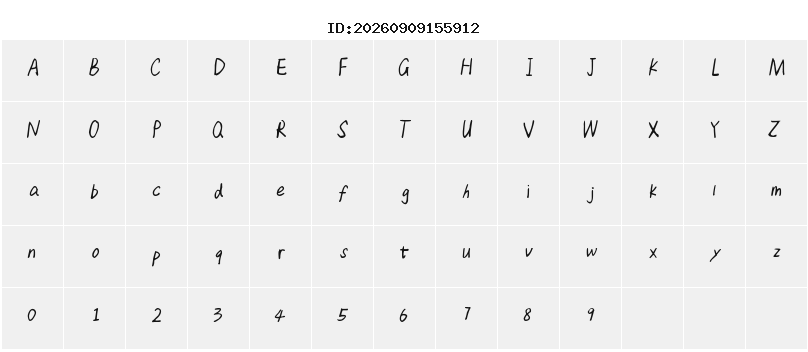
字家暖阳体 Preview
About 字家暖阳体.TTF
字家暖阳体.TTF is a modern, elegant sans-serif font designed for ultimate readability and visual harmony. Perfect for branding, headlines, web design, and print materials.